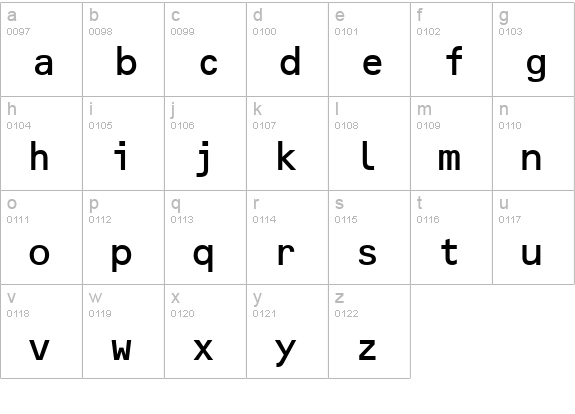
OCR 2 SSi Font Details
OCR 2 SSi font is a versatile and modern typeface designed for optimal readability in various applications. With its clean and sharp lines, this font is perfect for use in documents, presentations, and digital designs. The OCR 2 SSi font is ideal for capturing attention while maintaining a professional appearance. What sets OCR 2 SSi font apart is that it is available for free download at FontsMarket.com. This means that you can easily access and use this high-quality font without any cost. Whether you are a designer, student, or professional, OCR 2 SSi font offers a valuable resource for enhancing your projects with a sleek and contemporary look. Download OCR 2 SSi font today and elevate your designs with this free and accessible typeface.